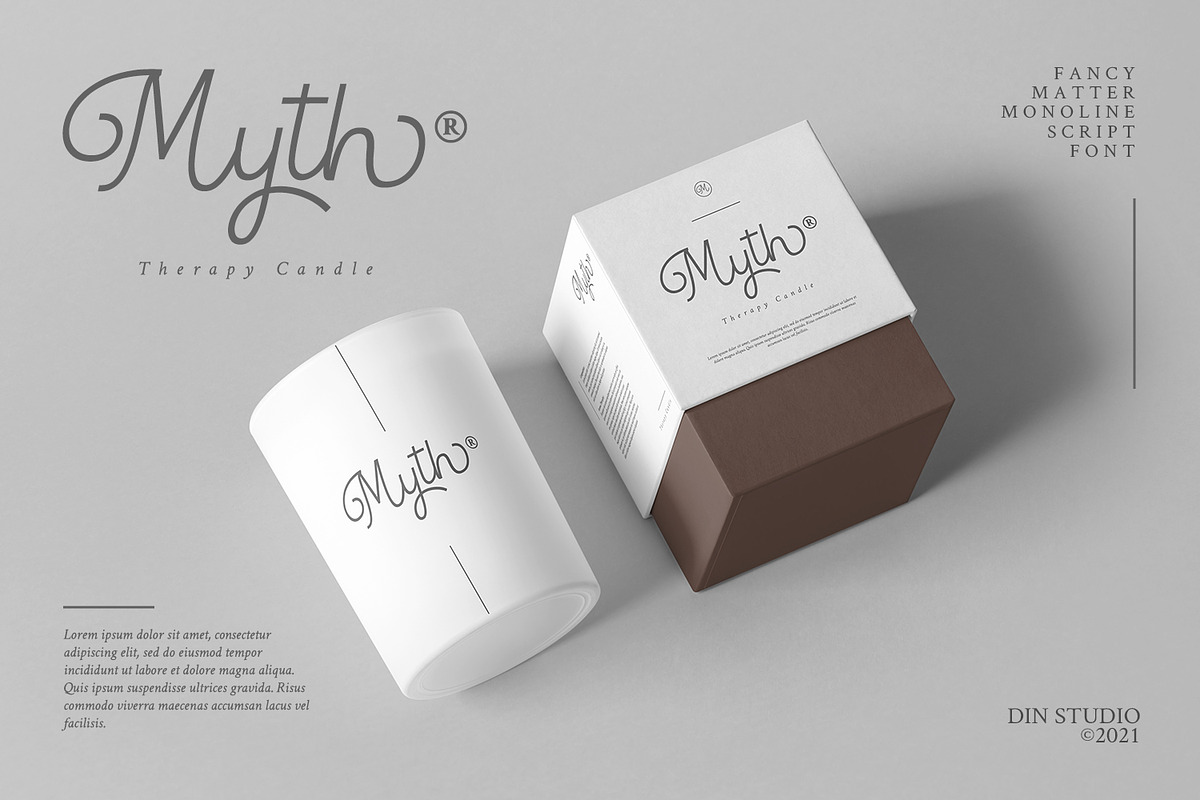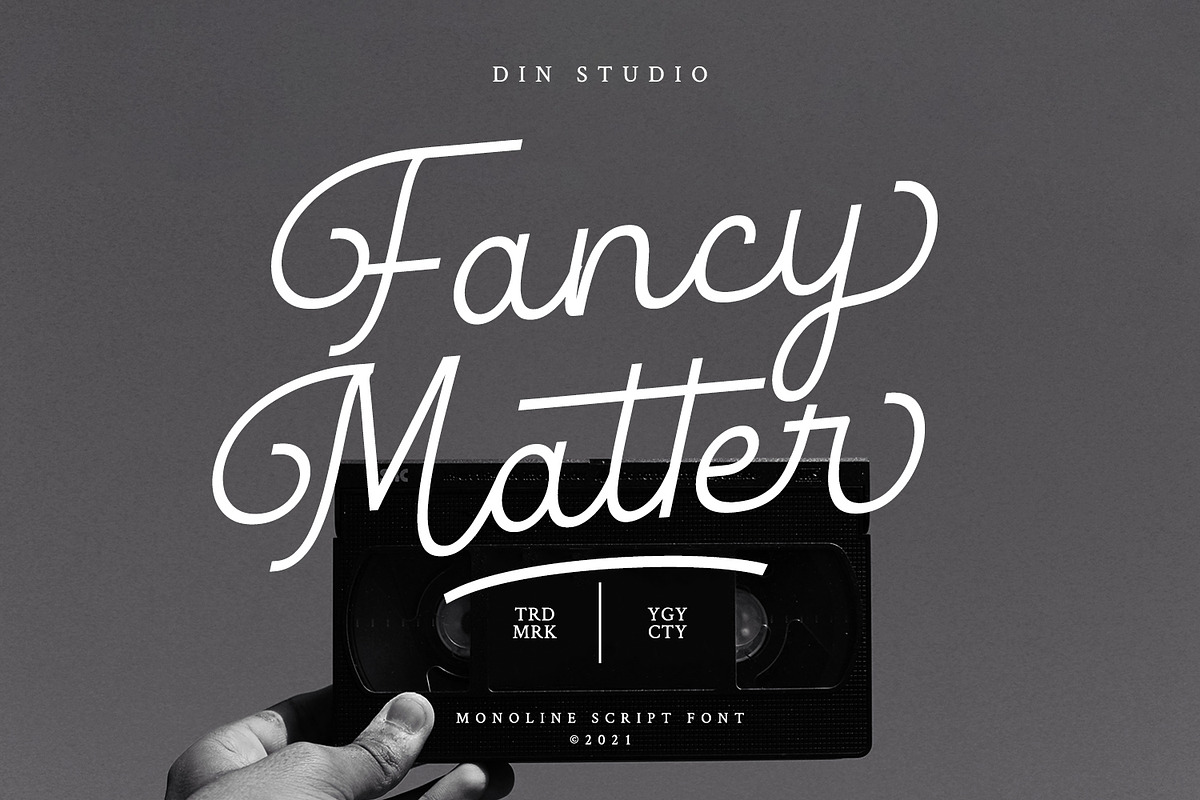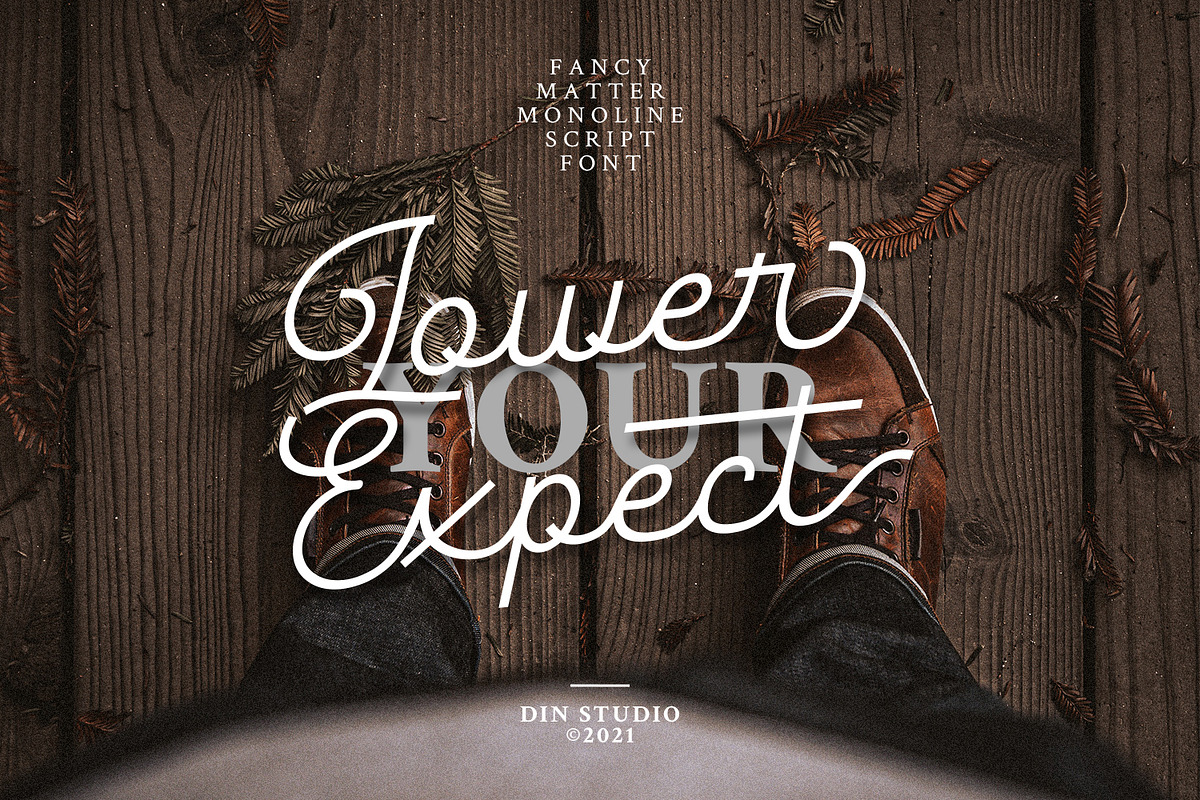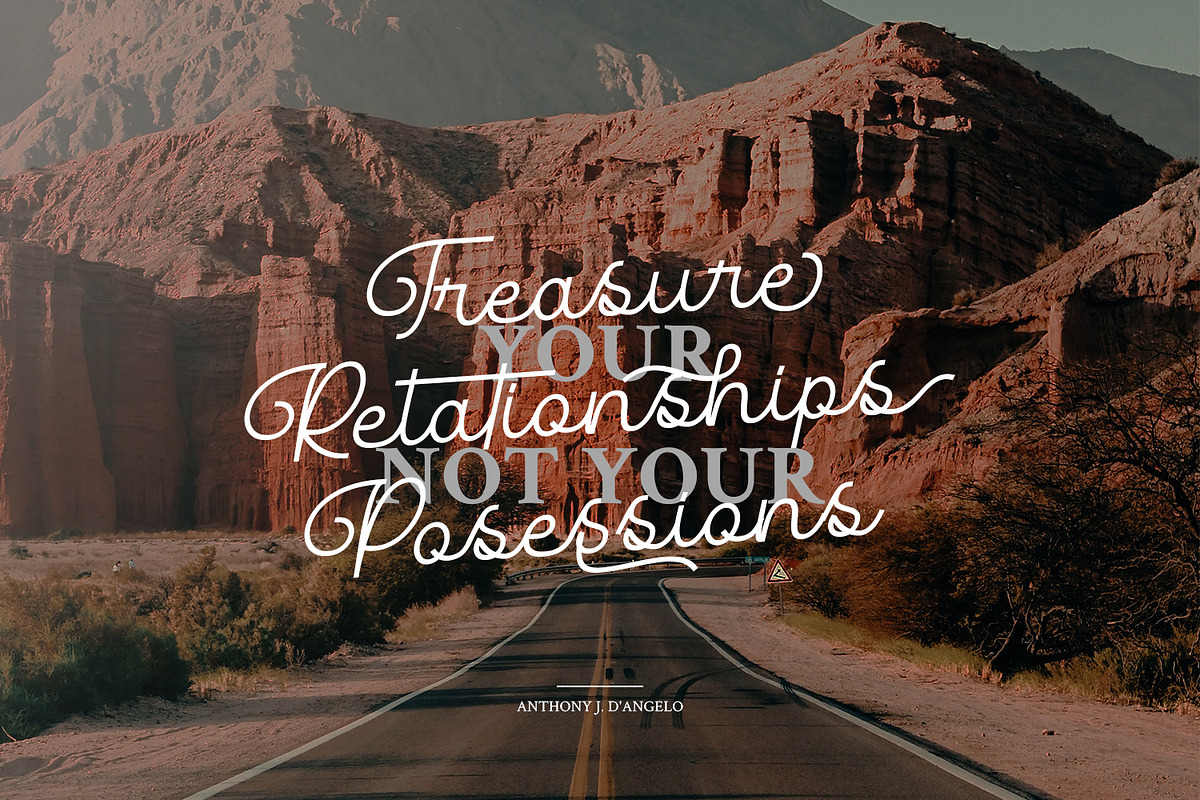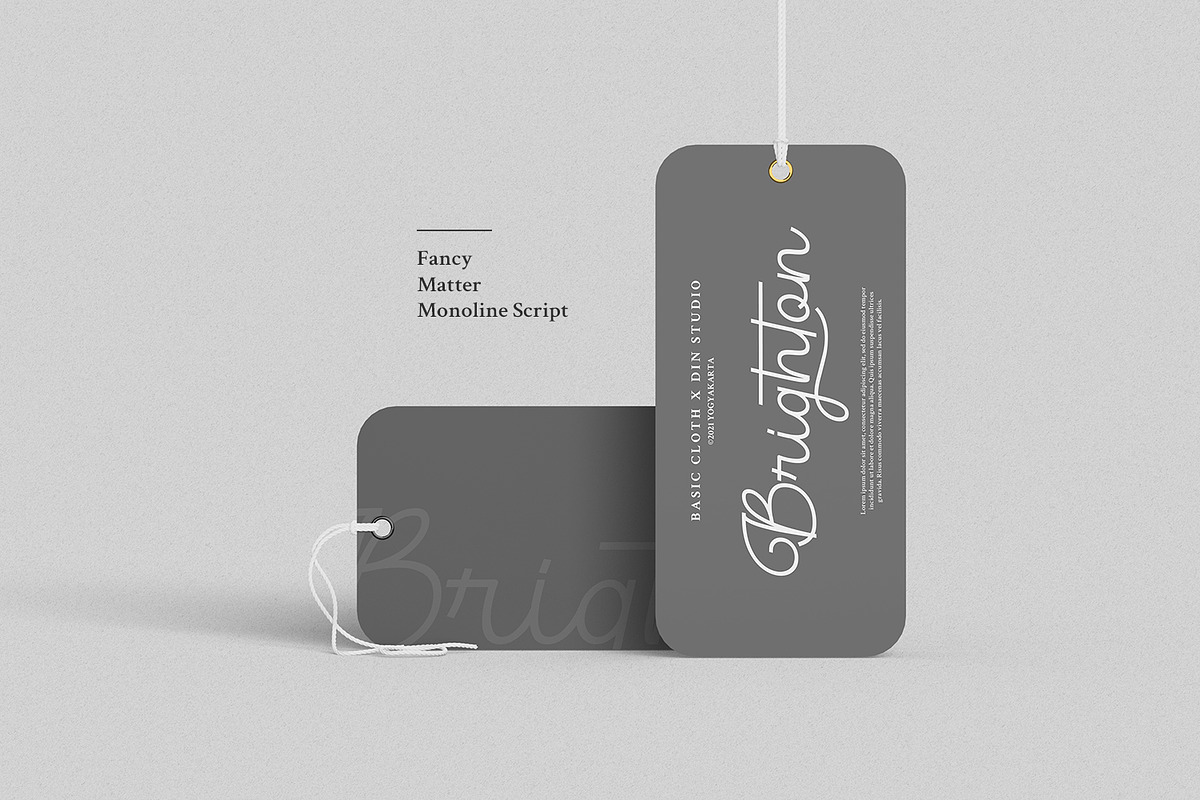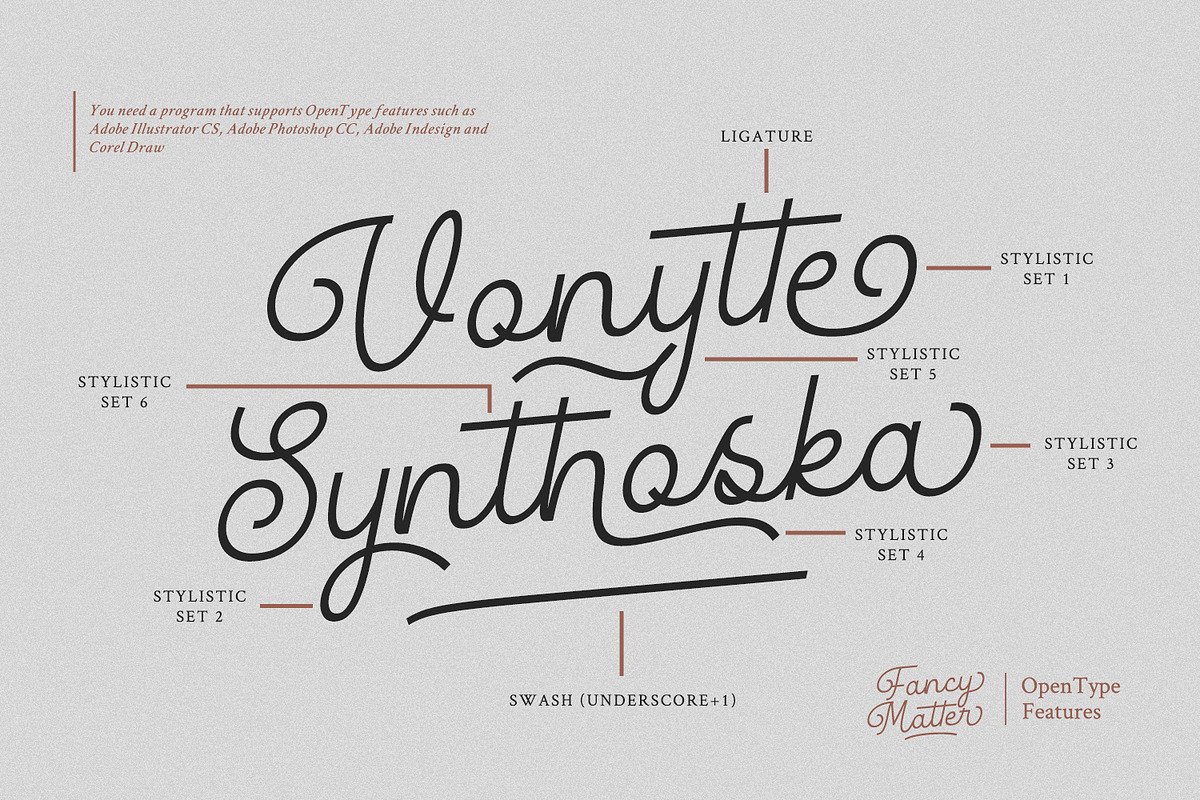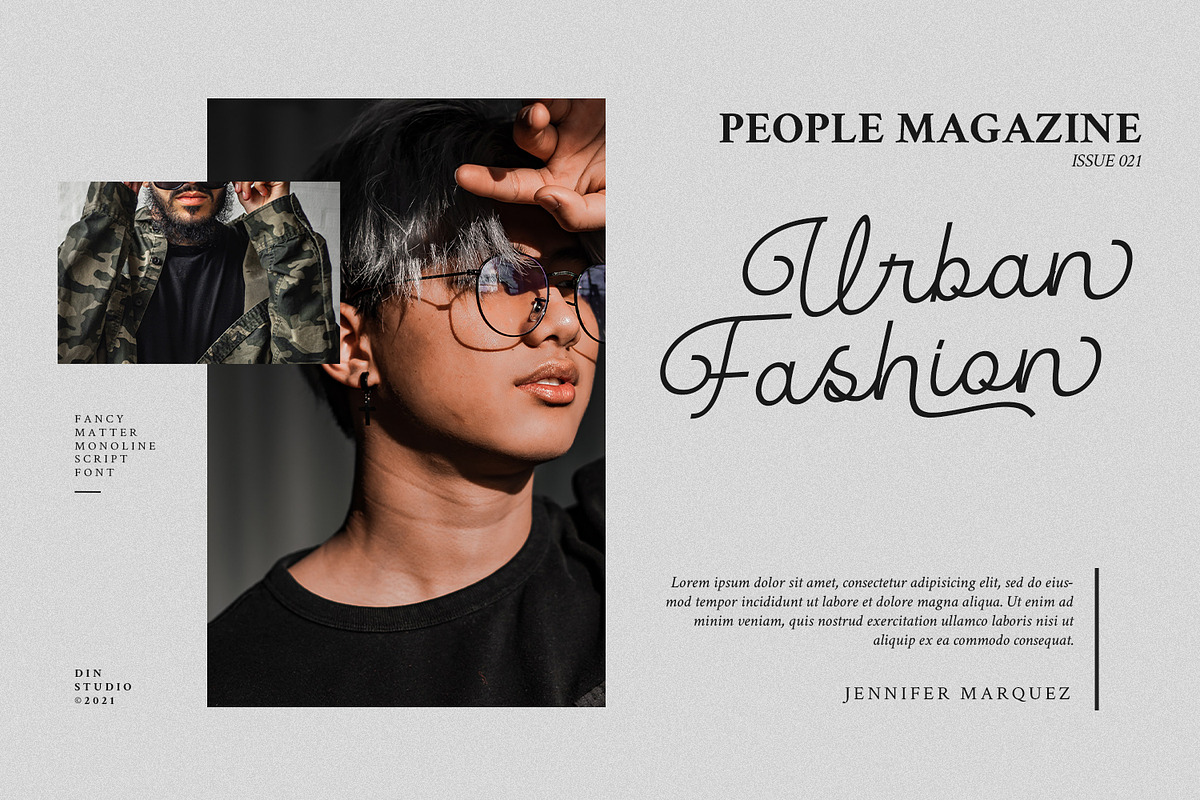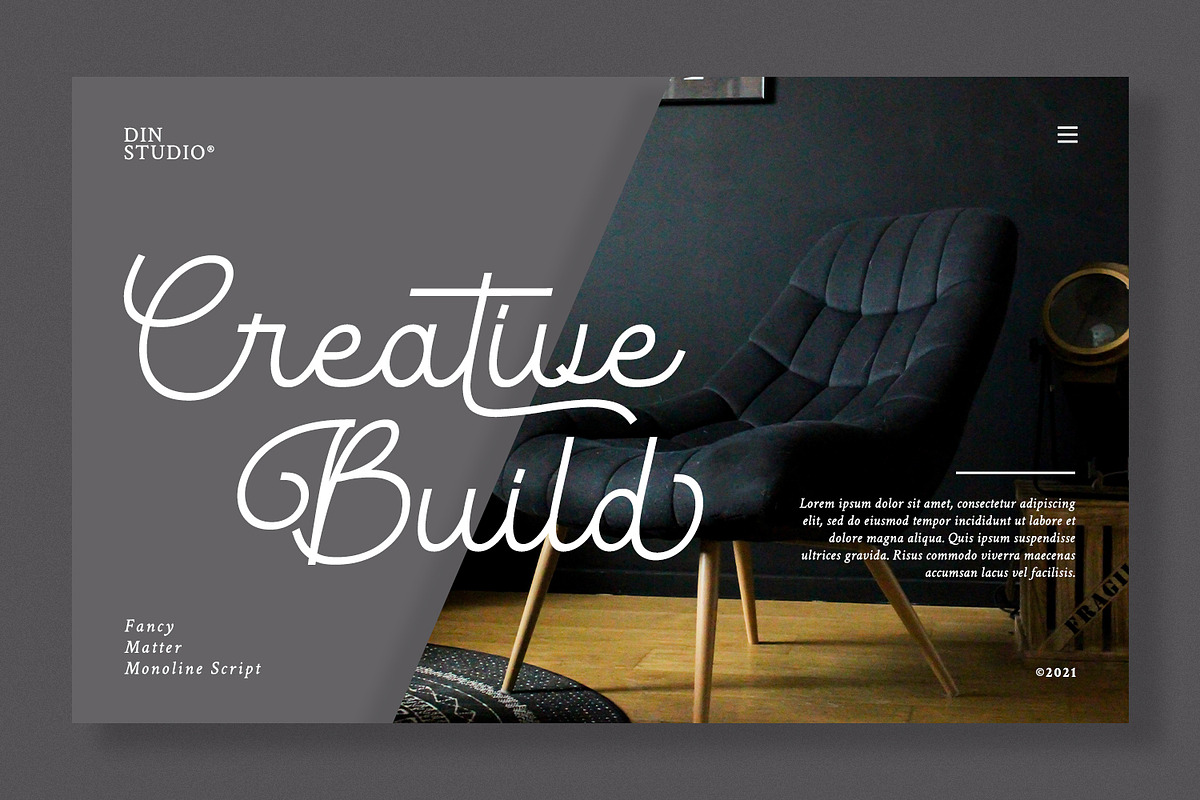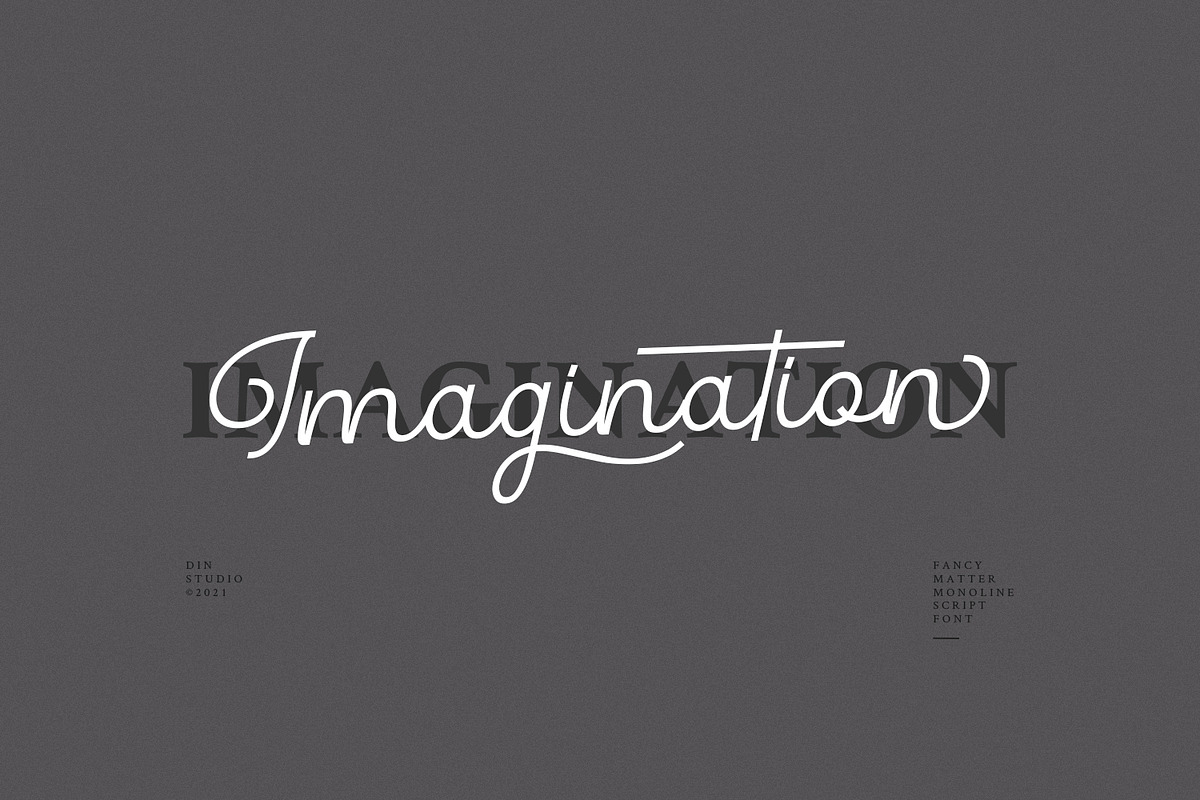
Fancy Matter
Hi, Everyone! Dreaming of a fancy things? Want to travel your audience or customer to a fabulous, beautiful, and elegant world ? Introducing Fancy Matter – A Monoline Signature Font.
A fancy and elegant handcrafted font that create to impress your audience and make your branding shine. Make your projects dance with this elegant and wonderful font wherever you use it. Use it for your headings, logos, ads, printed quotes, packaging, and even your website or social media branding.
- Standard Ligature
- Stylistic Sets